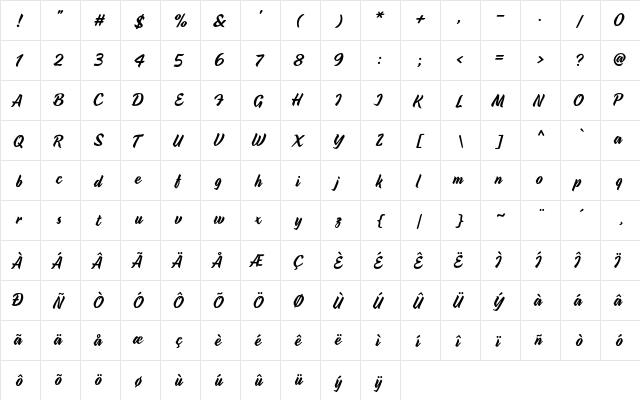
Urbax Personal Use Regular
| Foundry | Eko Bimantara |
| Designer | Eko Bimantara |
Design Context for Urbax Personal Use Typeface
Urbax Personal Use is a composed and adaptable typeface that performs quietly and consistently across a wide range of design contexts.